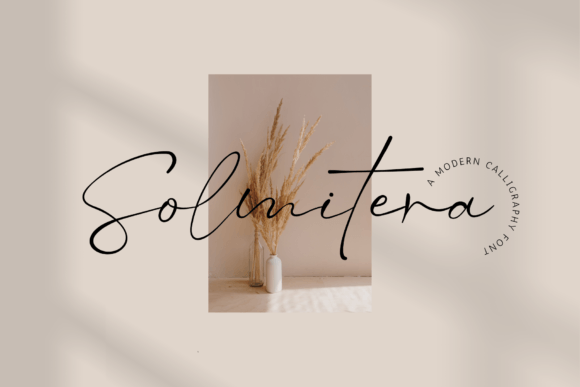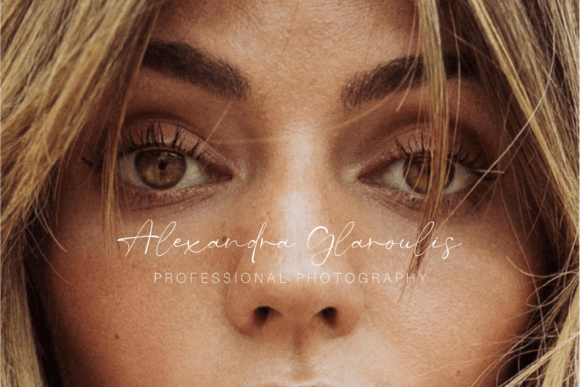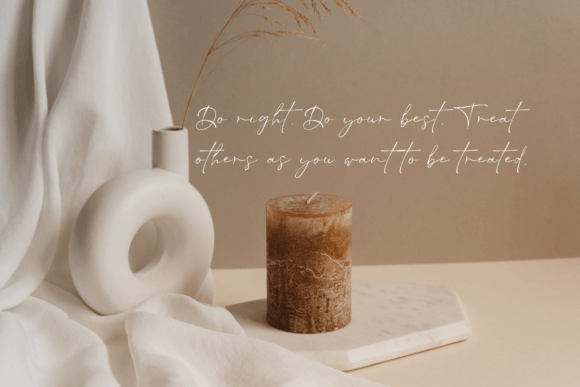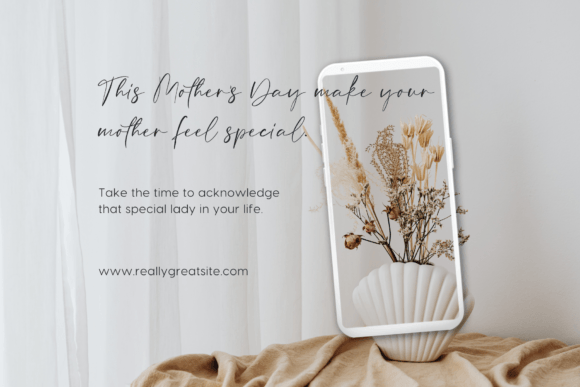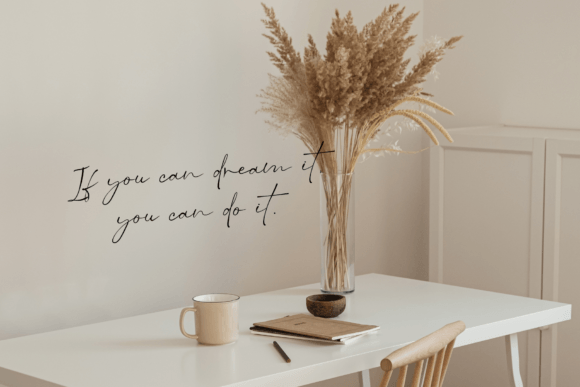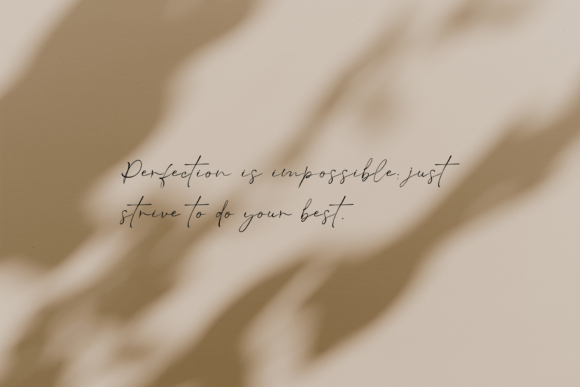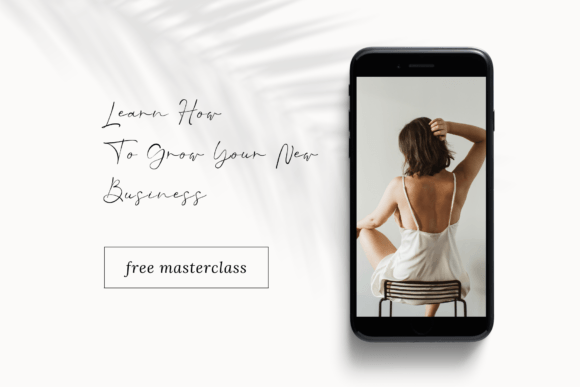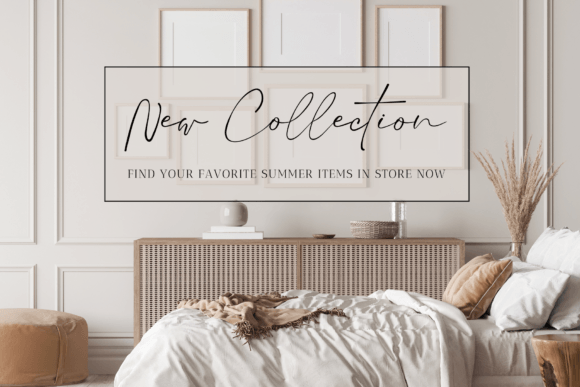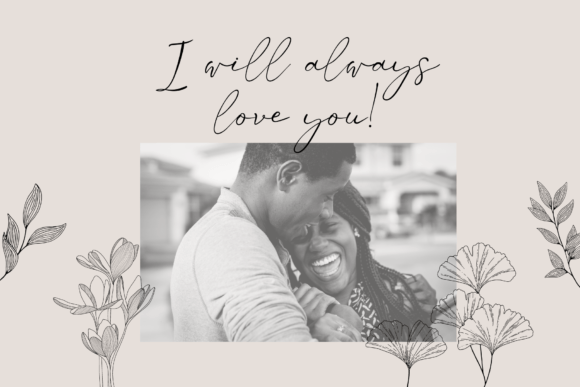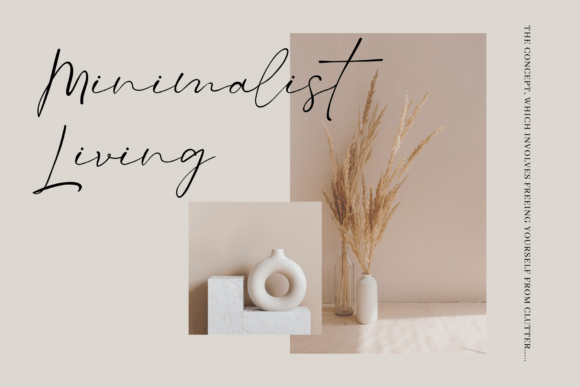
Solmitera Font
About Solmitera Font
“Solmitera” is a font that effortlessly combines charm and elegance. It is a stunning choice for a wide range of design projects, including wedding invitations, thank you cards, quotes, greeting cards, logos, and business cards, where a handwritten touch is desired.
The beauty of “Solmitera” lies in its ability to convey both a sense of charm and sophistication. Its well-crafted characters are designed to bring out the elegance in your designs, making it a perfect fit for occasions that require a personal and intimate feel. This font demonstrates how typography can enhance the emotional impact and visual appeal of your work.
One standout feature of “Solmitera” is its versatility. It adapts seamlessly to various design contexts, enriching each project with a touch of handwritten authenticity. Additionally, being PUA encoded, this font provides easy access to a wide range of glyphs and swashes, allowing for even more customization in your designs.
With “Solmitera” in your font toolkit, you have a versatile tool that can enhance your creative projects with its charming and elegant style. It serves as a reminder of how thoughtful typography can elevate the aesthetics and emotional connection of your work.
In summary, “Solmitera” is a font that balances charm and elegance beautifully. It is a stunning choice for a variety of design projects, from wedding invitations to business cards, where a handwritten touch is desired. Its versatility and PUA encoding make it a valuable asset for designers and creators looking to infuse their work with a sense of personalization and sophistication.